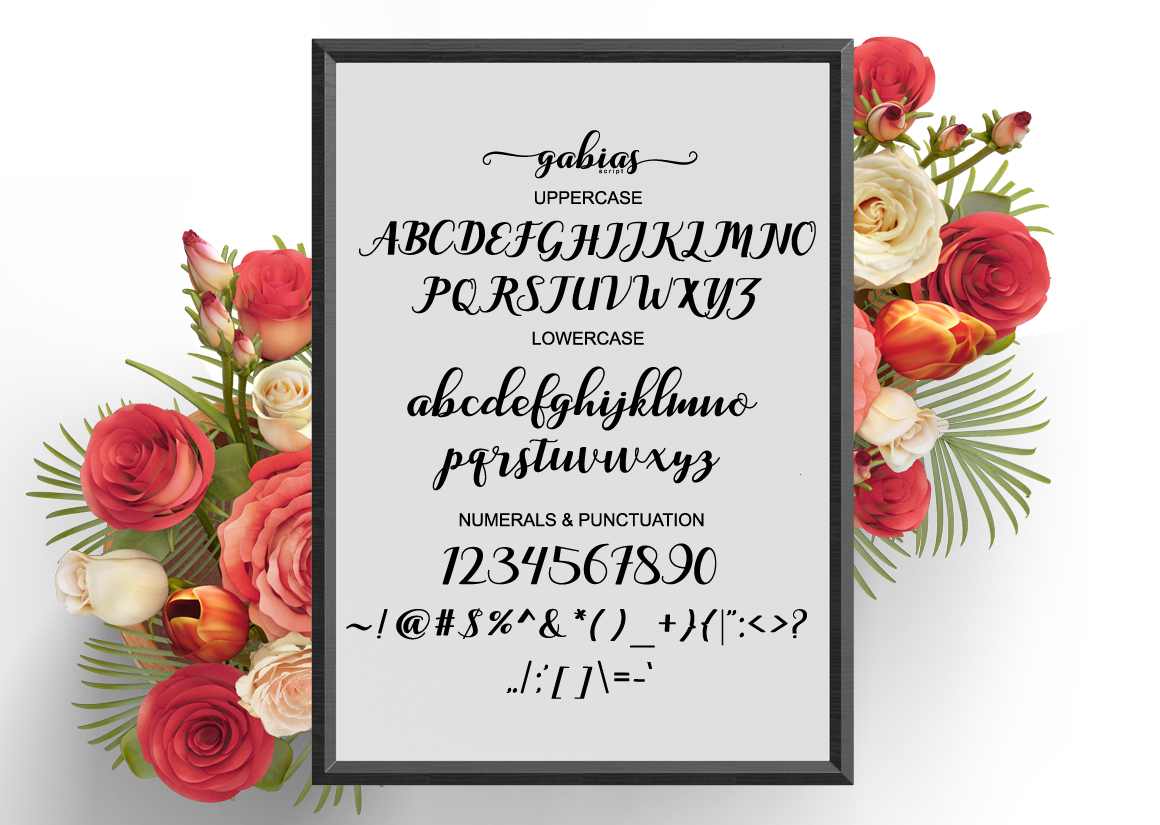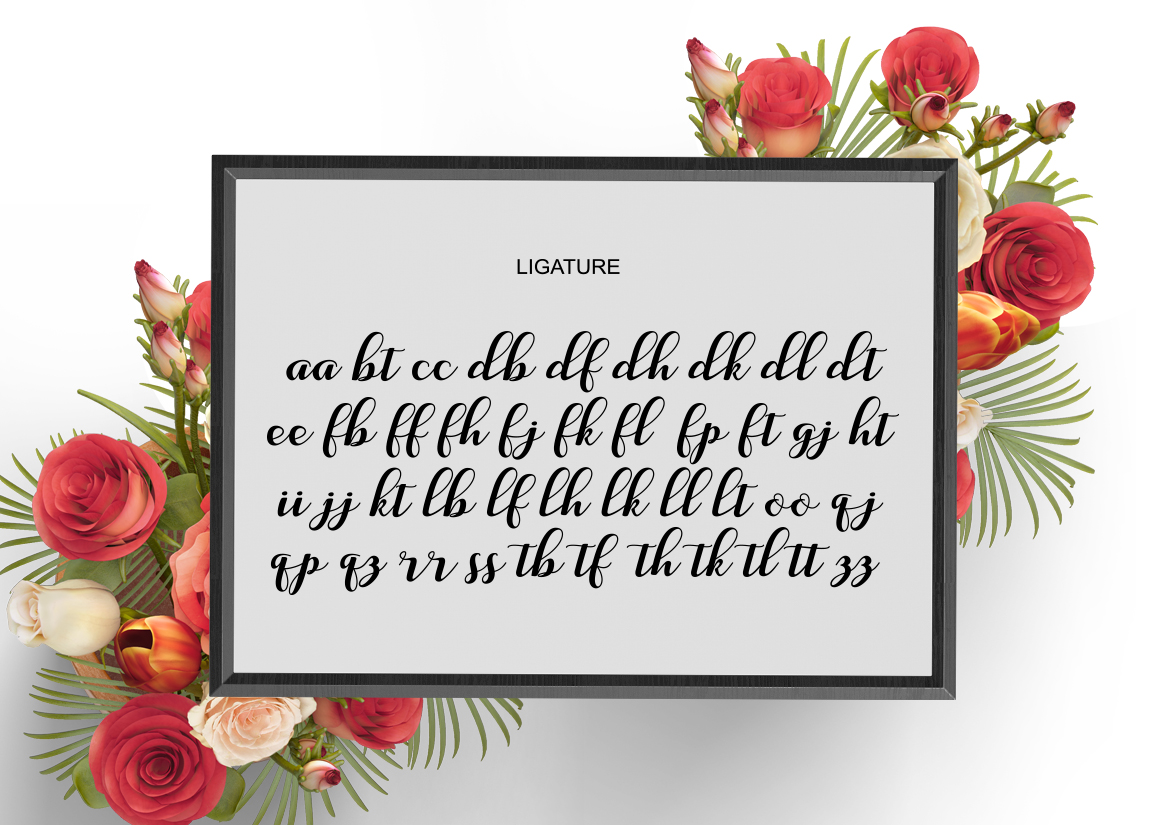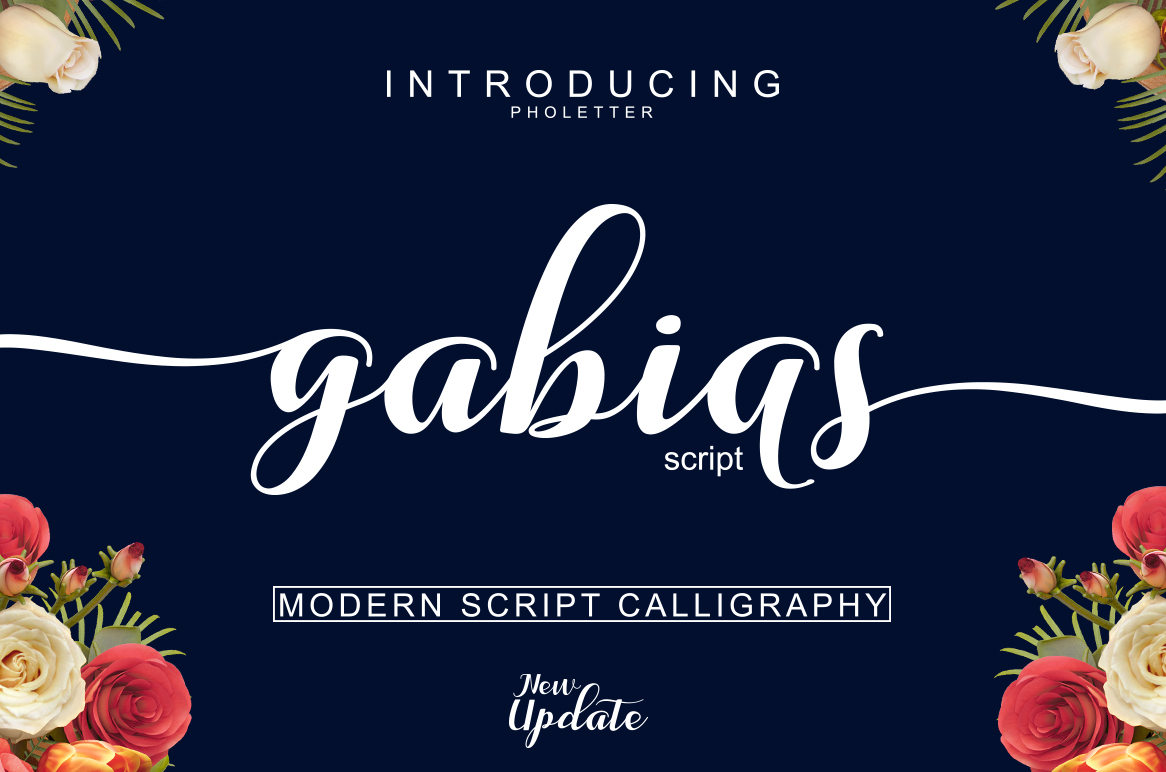
Gabias Script
gabias Script a new fresh & modern script with a handmade calligraphy style, decorative characters and a dancing baseline! So beautiful on invitation like greeting cards, branding materials, business cards, quotes, posters, and more!! gabias Script come with 377+ glyphs. The alternative characters were divided into several Open Type features such as Swash, Stylistic Sets, Stylistic Alternates, Contextual Alternates. The Open Type features can be accessed by using Open Type savvy programs such as Adobe Illustrator, Adobe InDesign, Adobe Photoshop Corel Draw X version, And Microsoft Word. And this Font has given PUA unicode (specially coded fonts). so that all the alternate characters can easily be accessed in full by a craftsman or designer.